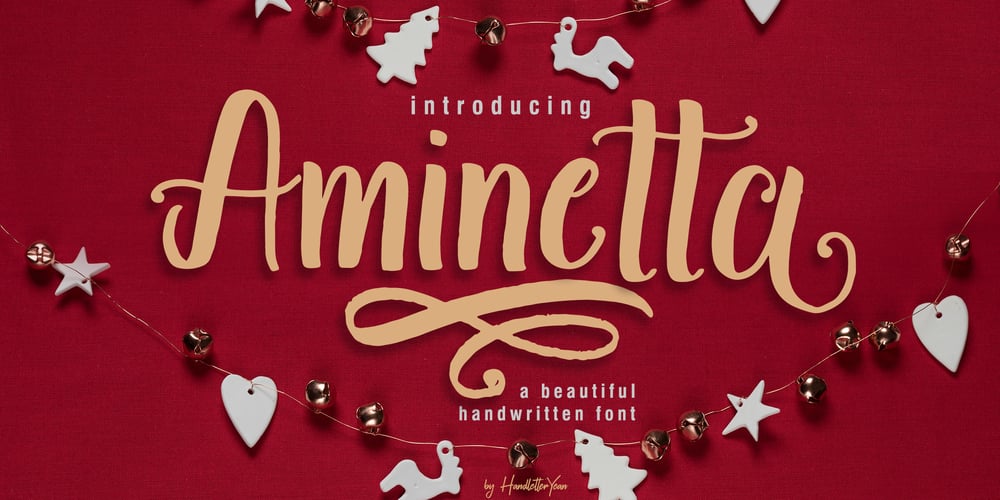
Aminetta Font Family was designed by Yean Aguste and published by HandletterYean. Aminetta contains 3 styles and family package options. Aminetta is a beautiful hand-written display font which shows happiness and joy in your heart. This font is most suitable to celebrating your holiday season but also to any occasion you have. Feel free to use it on any creative design you want.